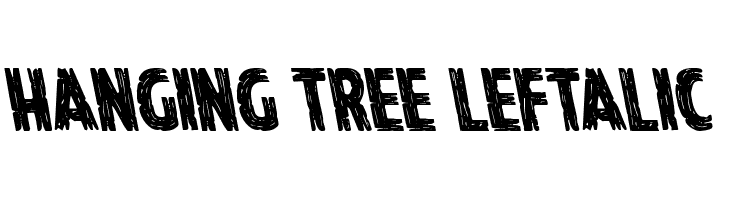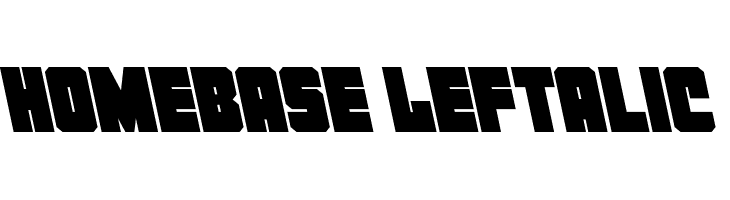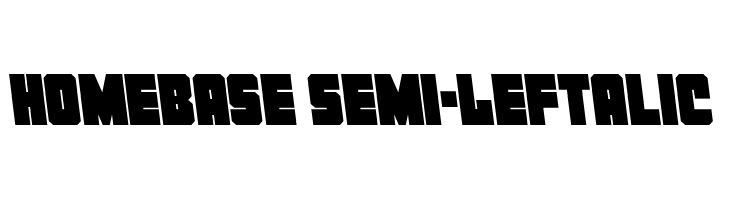
A bold, blocky font with a slight slant and high contrast, perfect for impactful headlines.
A bold, futuristic font with sharp angles and a dynamic, forward-leaning style.
A bold, angular font with a futuristic and dynamic style.
A bold, distressed, hand-drawn font with a rugged, energetic style.
A bold, angular font with a modern, geometric style.
A bold, futuristic font with a geometric, mechanical style.
Bold, angular font with a futuristic and dynamic style.
A bold, geometric font with a blocky, modern design.
A bold, angular font with a geometric, modern design.
A bold, futuristic font with angular, slanted characters and a geometric design.